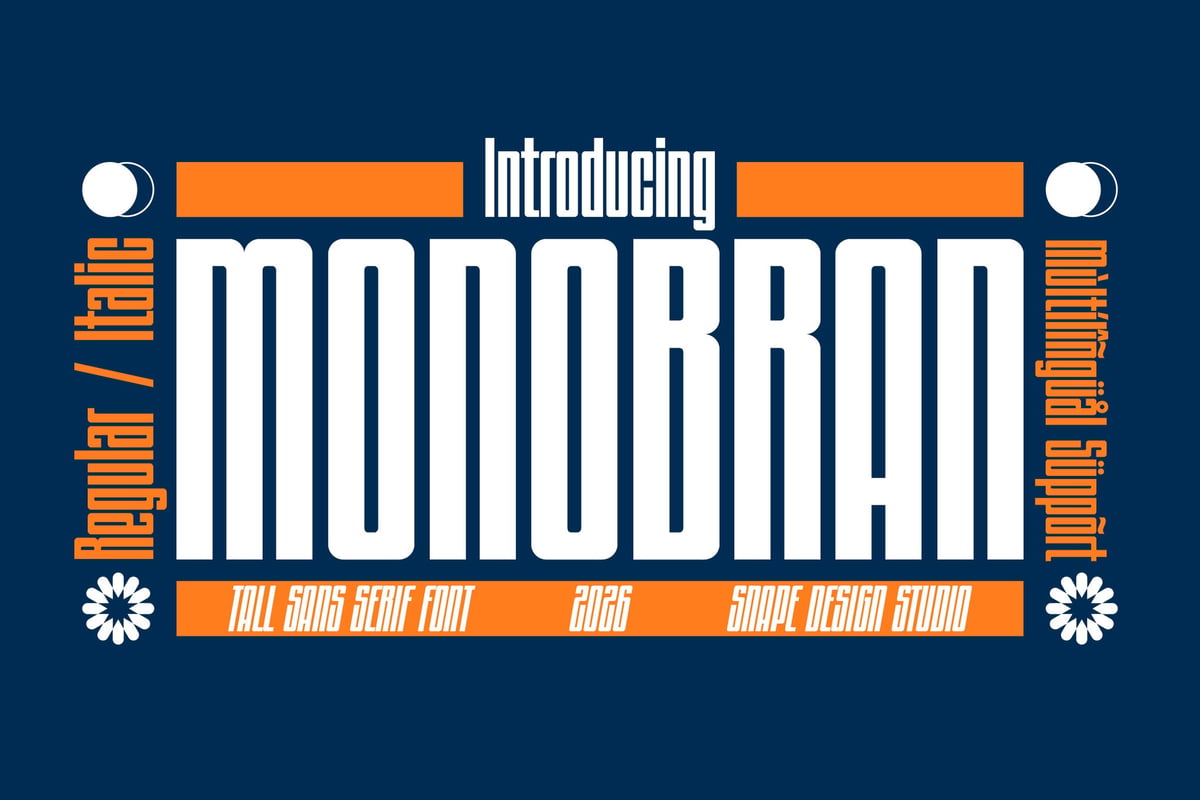
Monobran - Tall Sans Serif Font
Make a bold statement with Monobran - the tall sans serif display font that commands attention and delivers visual impact. This modern condensed typeface combines industrial strength with sleek geometric precision, creating powerful letterforms that dominate headlines, posters, and branding projects. Monobran's tall and narrow proportions allow you to craft eye-catching compositions while maximizing space efficiency - perfect for contemporary graphic design challenges. The font's clean architect...